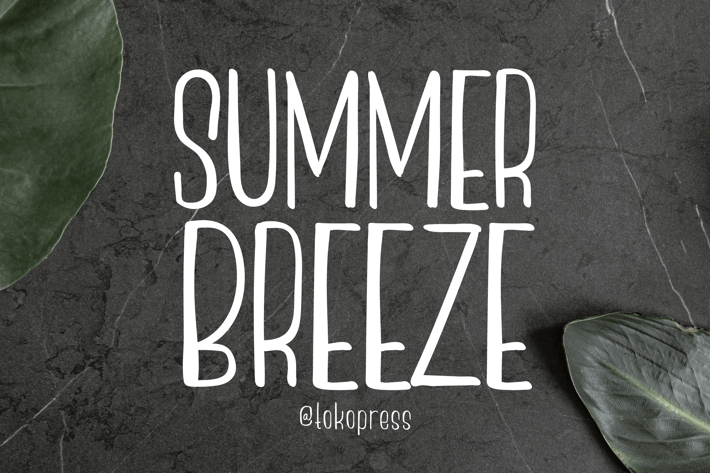
Summer breeze - Girly font
Summer Breeze - Cute font
Summer Breeze is a tall, light-weight display typeface with relaxed vertical flow and a serene, minimalist vibe—perfect for lifestyle branding and aesthetic-focused visuals. Its clean, elongated letterforms blend a touch of modern editorial elegance with calm, breathable spacing, making it feel both stylish and approachable. The font evokes a sense of stillness and simplicity, ideal for creators in the wellness, interior design, or handmade product space.
Whether you're curating a relaxing Pinterest board, building your next lifestyle Instagram grid, or designing elegant packaging for a boutique candle line, Summer Breeze helps your message feel refined, airy, and visually satisfying. It delivers a calm but confident aesthetic, making it especially suitable for editorial quotes, skincare brands, moodboard templates, and eco-conscious product design.
Key Features :
- Elegant height: Its tall proportions create natural focus in headlines and quote cards
- Minimalist charm: Great for clean, neutral, or earthy designs
- Soft personality: Subtle curves and light weight give it an easy, flowing presence
- Editorial versatility: Works beautifully in layouts for magazines, lookbooks, or blogs
- Insta-ready: Built to shine in vertical social media formats like stories and reels